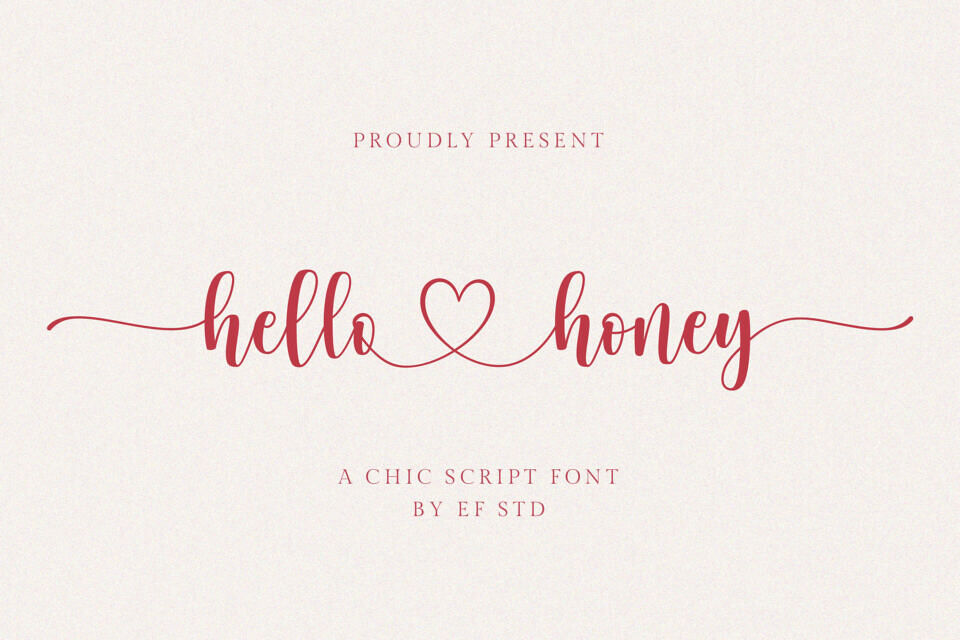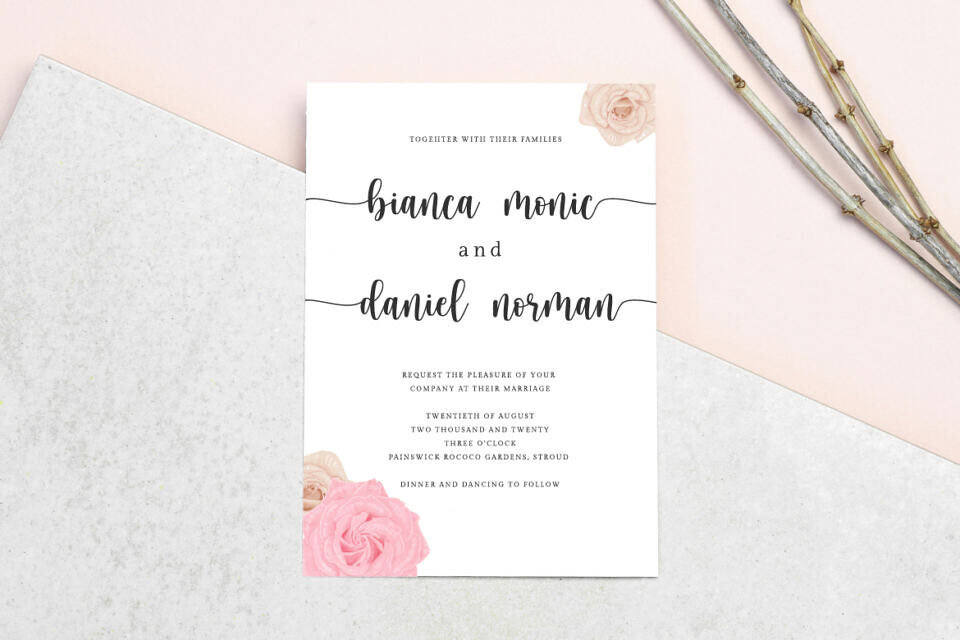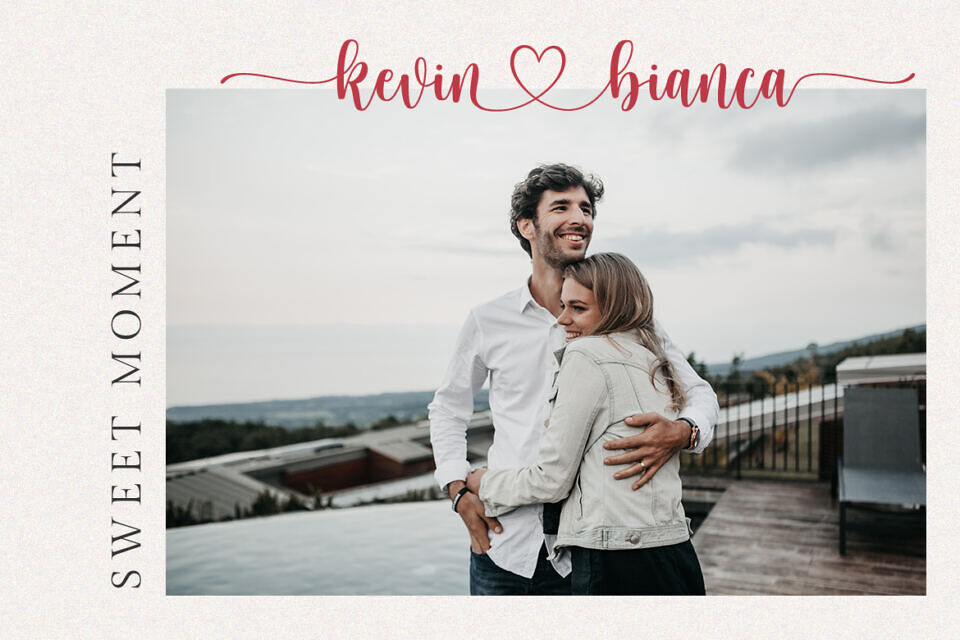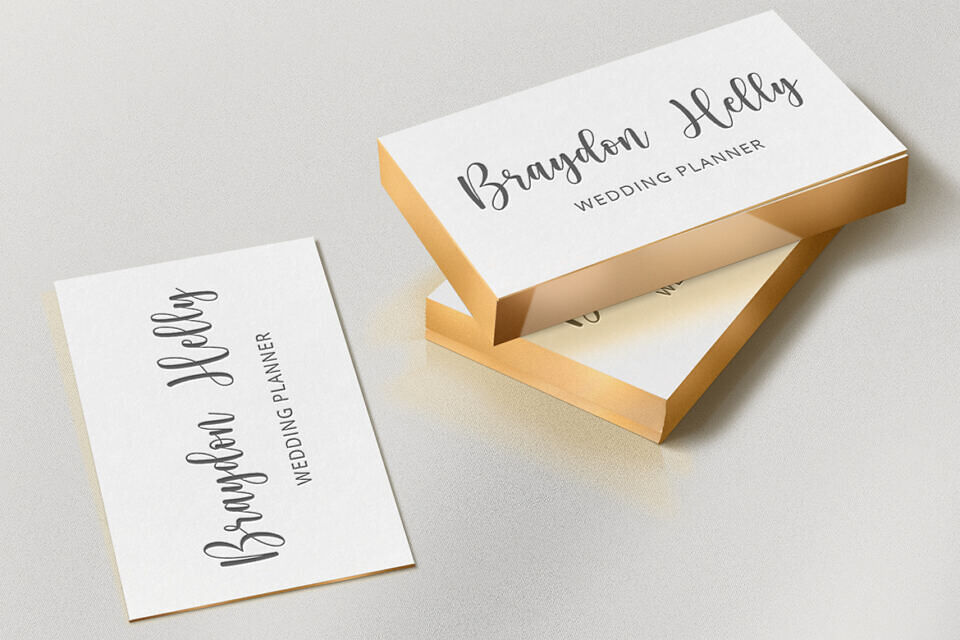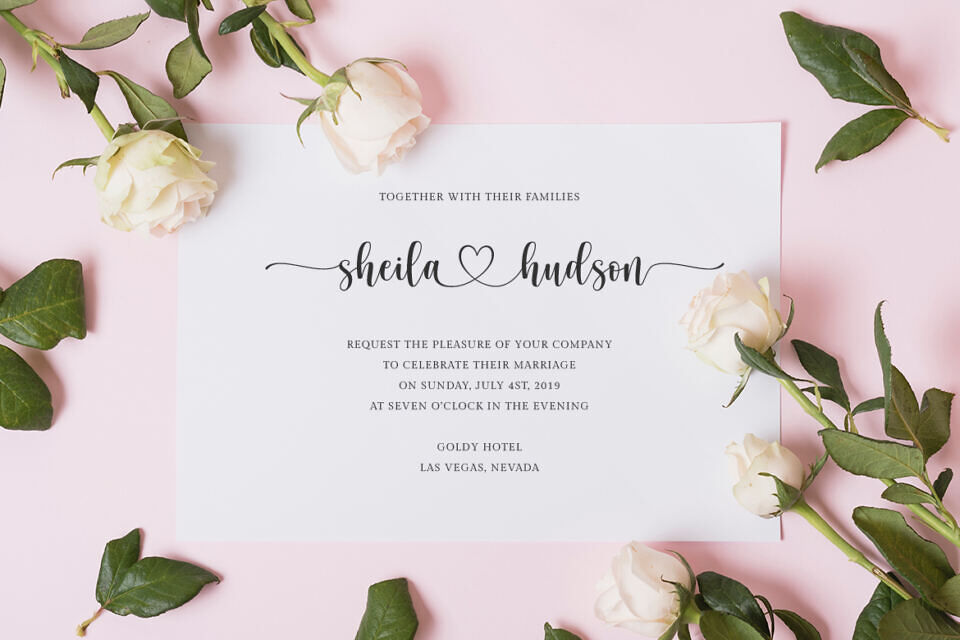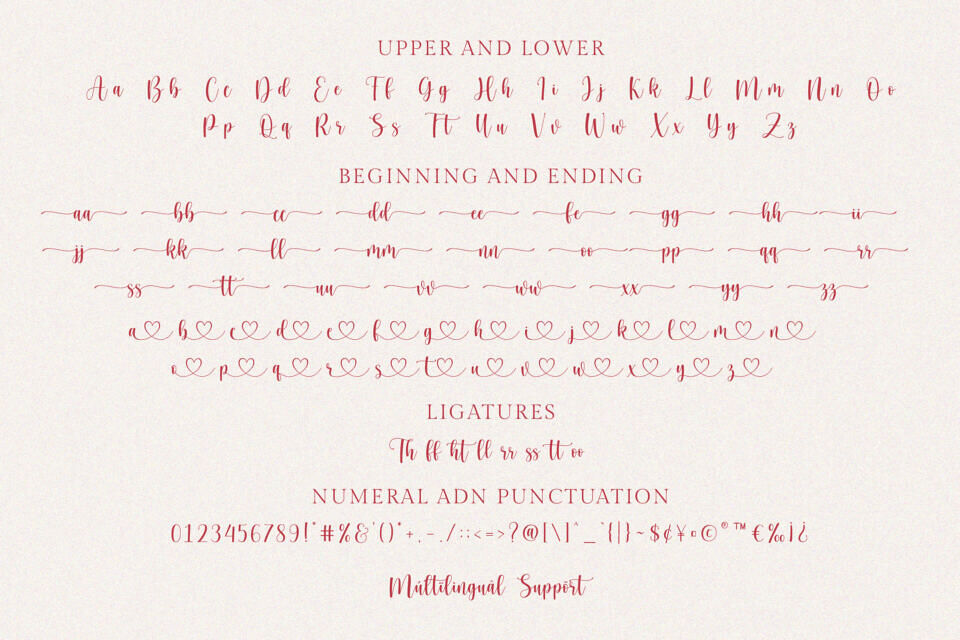
Hello Honey is a beautiful, chic script font designed to bring a touch of elegance and romance to your creative projects. With its fluid, handwritten flow and unique connecting heart shape, this font is an exceptional choice for wedding invitations, branding, social media quotes, and editorial layouts.